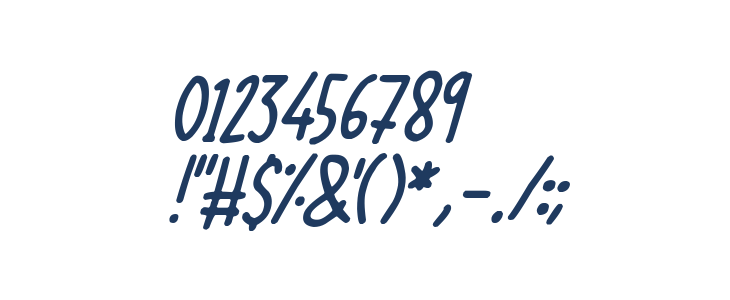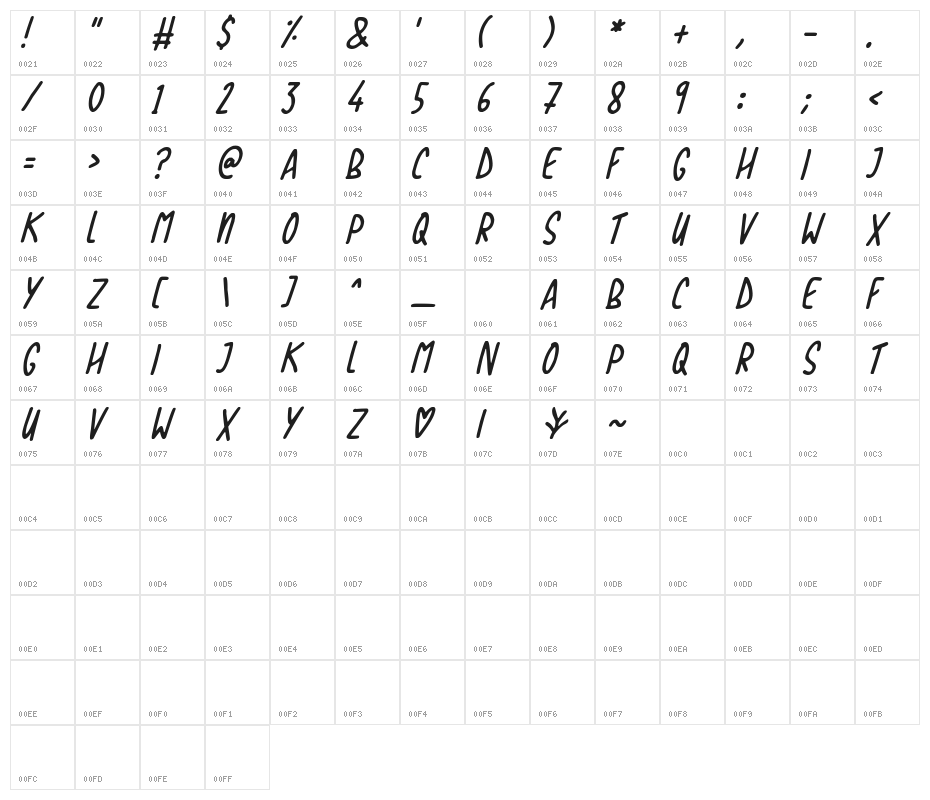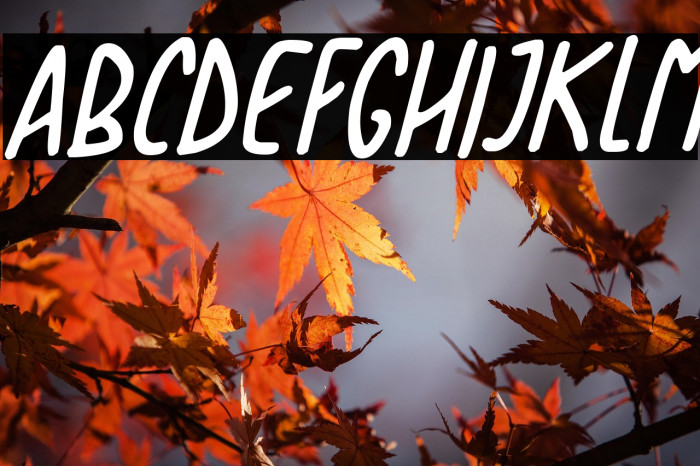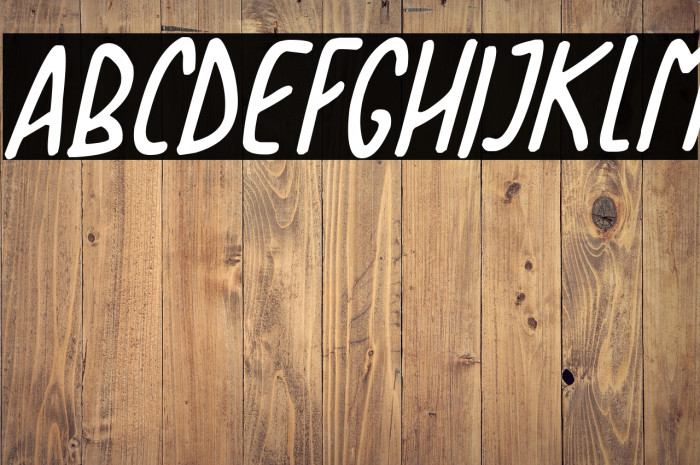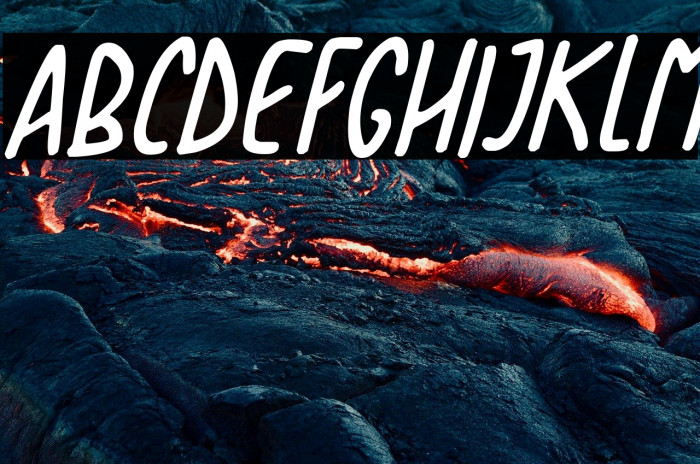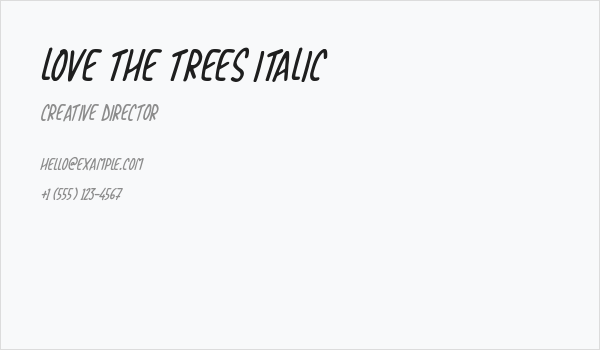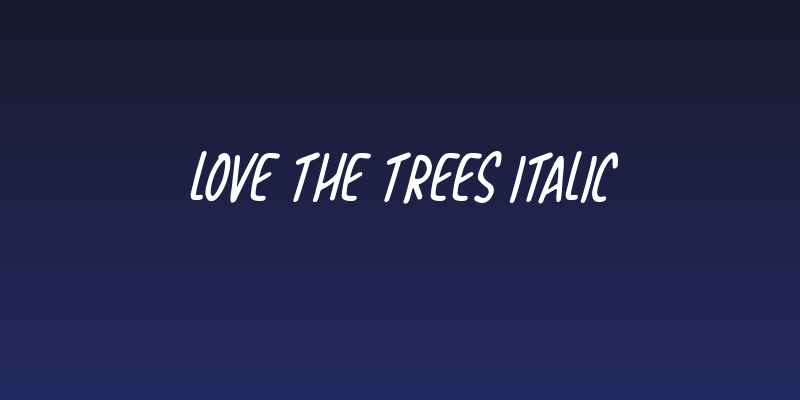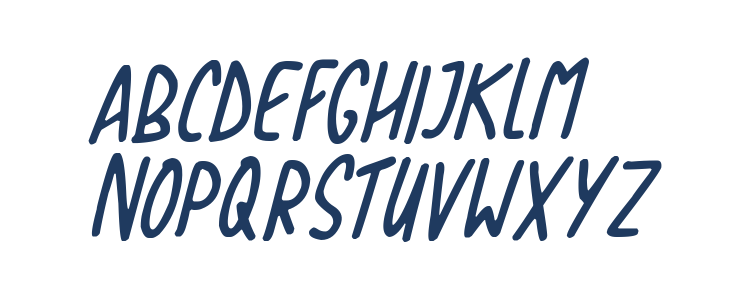
Love The Trees Italic Font
Love The Trees Italic Description
This font features a handwritten, italic style with a playful and energetic appearance. The letters are slightly slanted, giving a sense of motion and fluidity. The strokes are bold and consistent, providing a strong visual impact. The characters are well-spaced, ensuring readability while maintaining a casual and informal tone. The numbers and special characters follow the same stylistic approach, making the font versatile for various uses. Its unique style is perfect for projects that require a personal touch or a creative flair.
| Proposed Projects | Ideal for greeting cards, posters, branding, and social media graphics. |